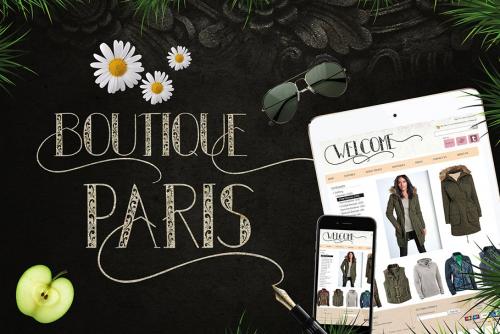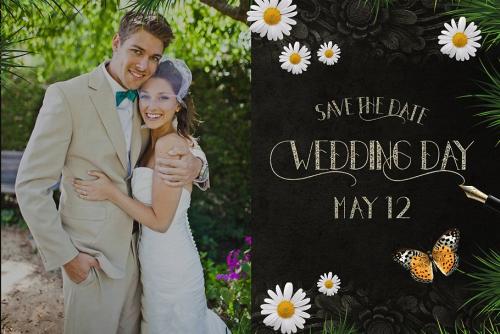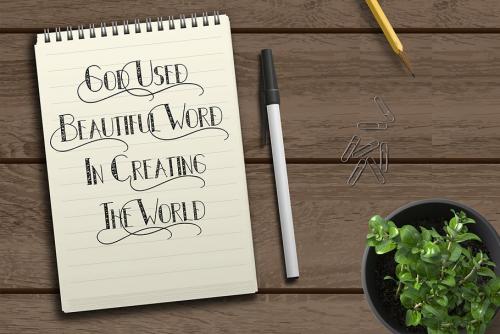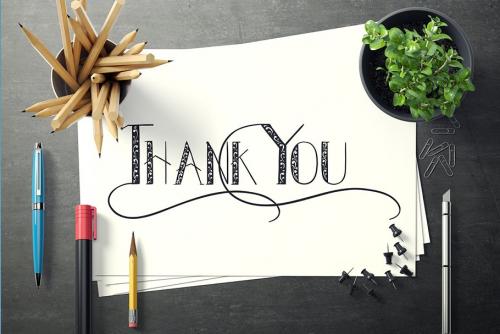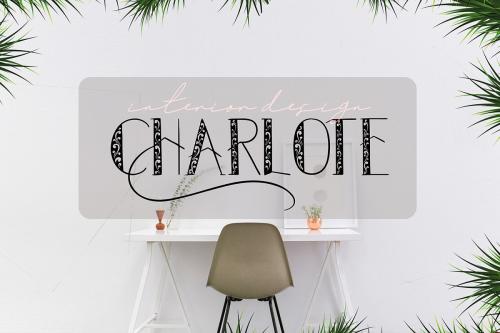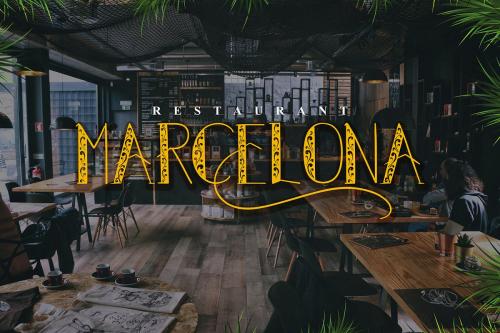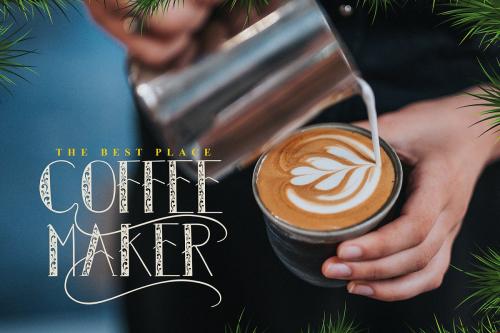
Autumn Leaves Font
Autumn Leaves is a vintage typeface font inspired from classic and old style. Have a ornament with classic type, suitable to create any branding, product packaging, invitation, qoutes, t-shirt, label poster etc.